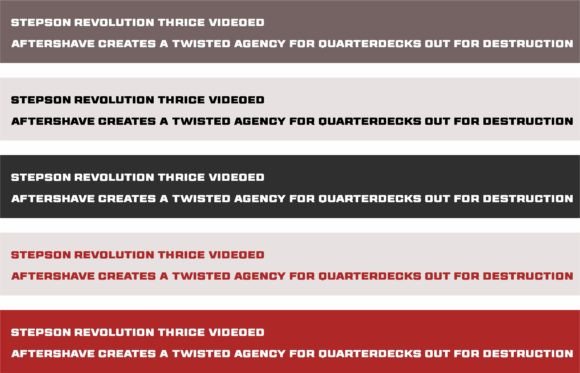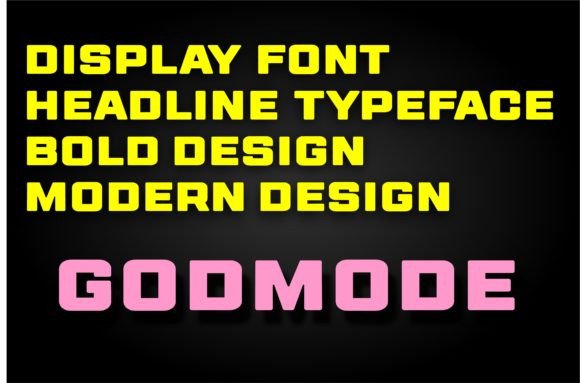
Introduction to Fulldozer Font
Bold and Commanding: FULLDOZER doesn’t just speak; it roars.
With a robust and assertive presence, every character demands to be noticed, making it the perfect choice for headlines that refuse to be ignored Elegance in Simplicity: While bold, FULLDOZER maintains an inherent elegance through its sleek and minimalist design.
Key Features of Fulldozer Font